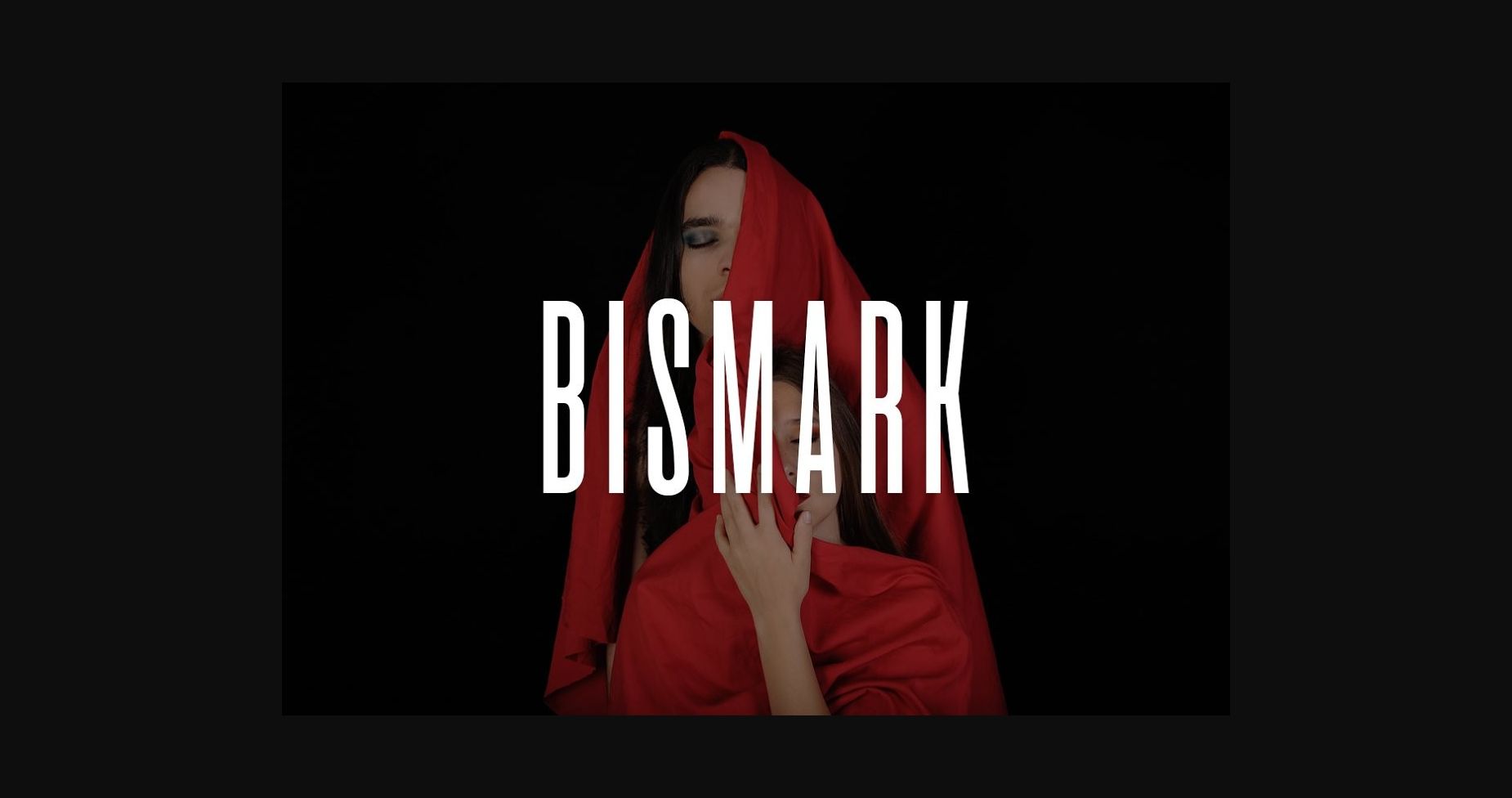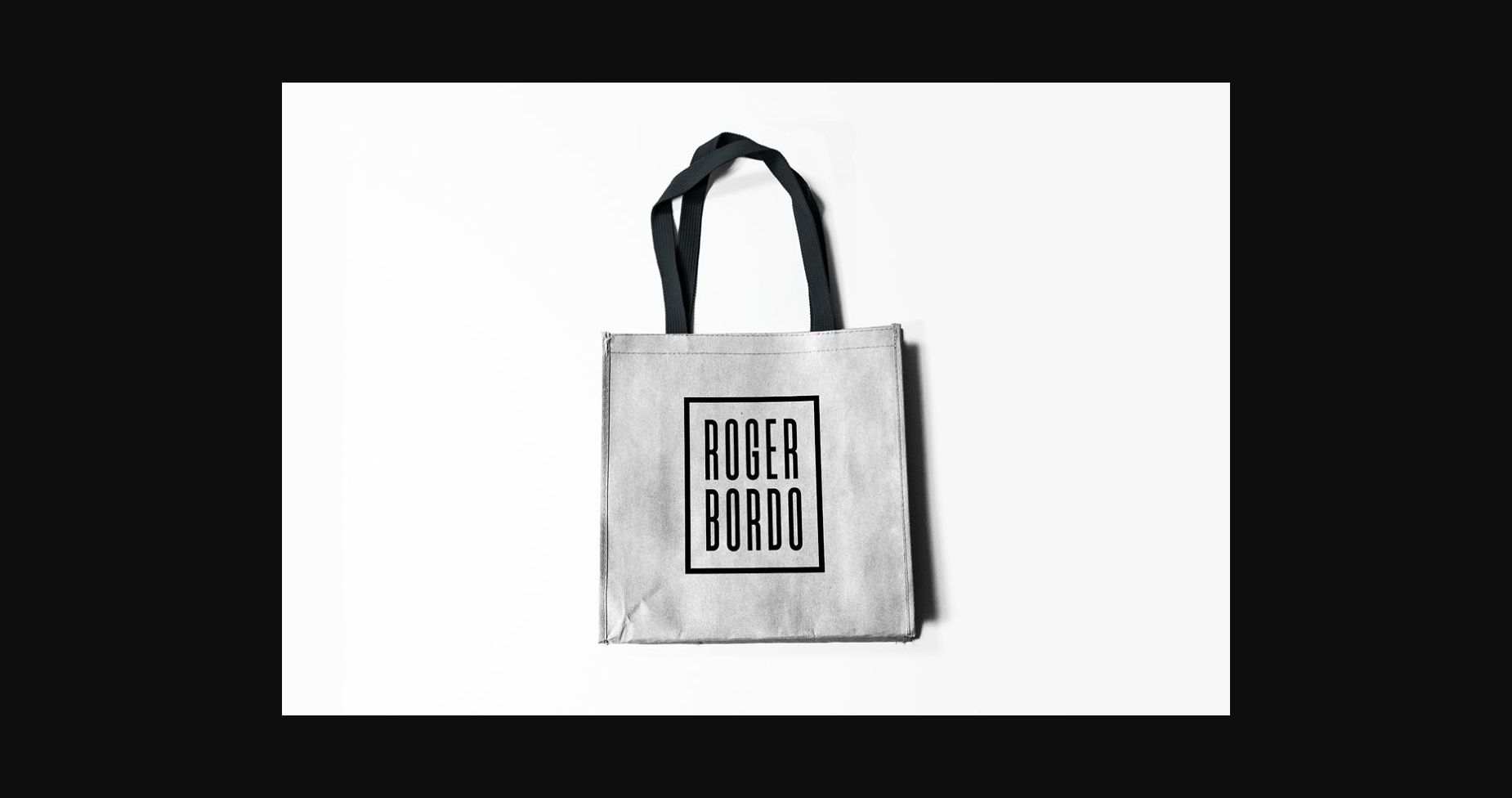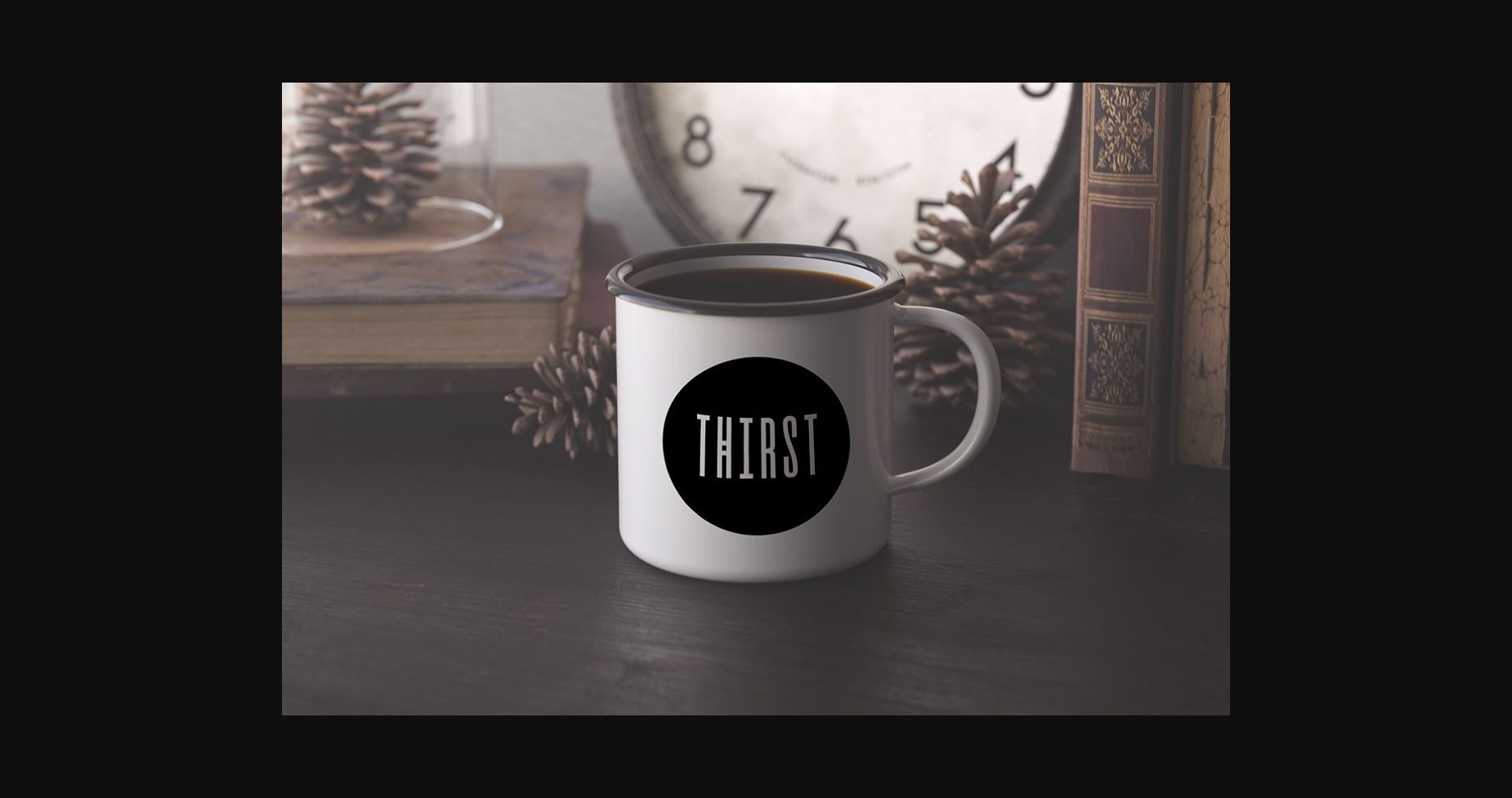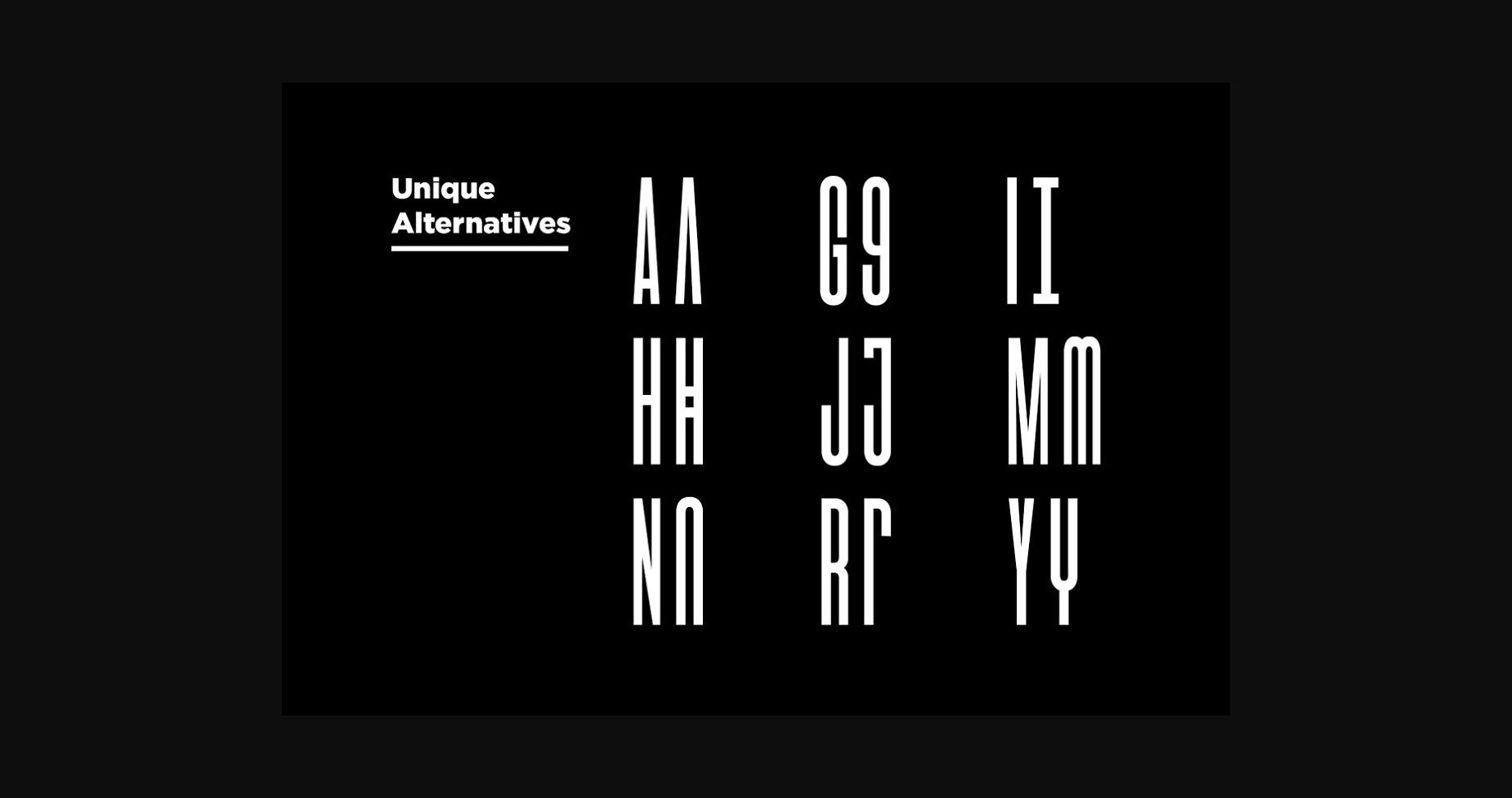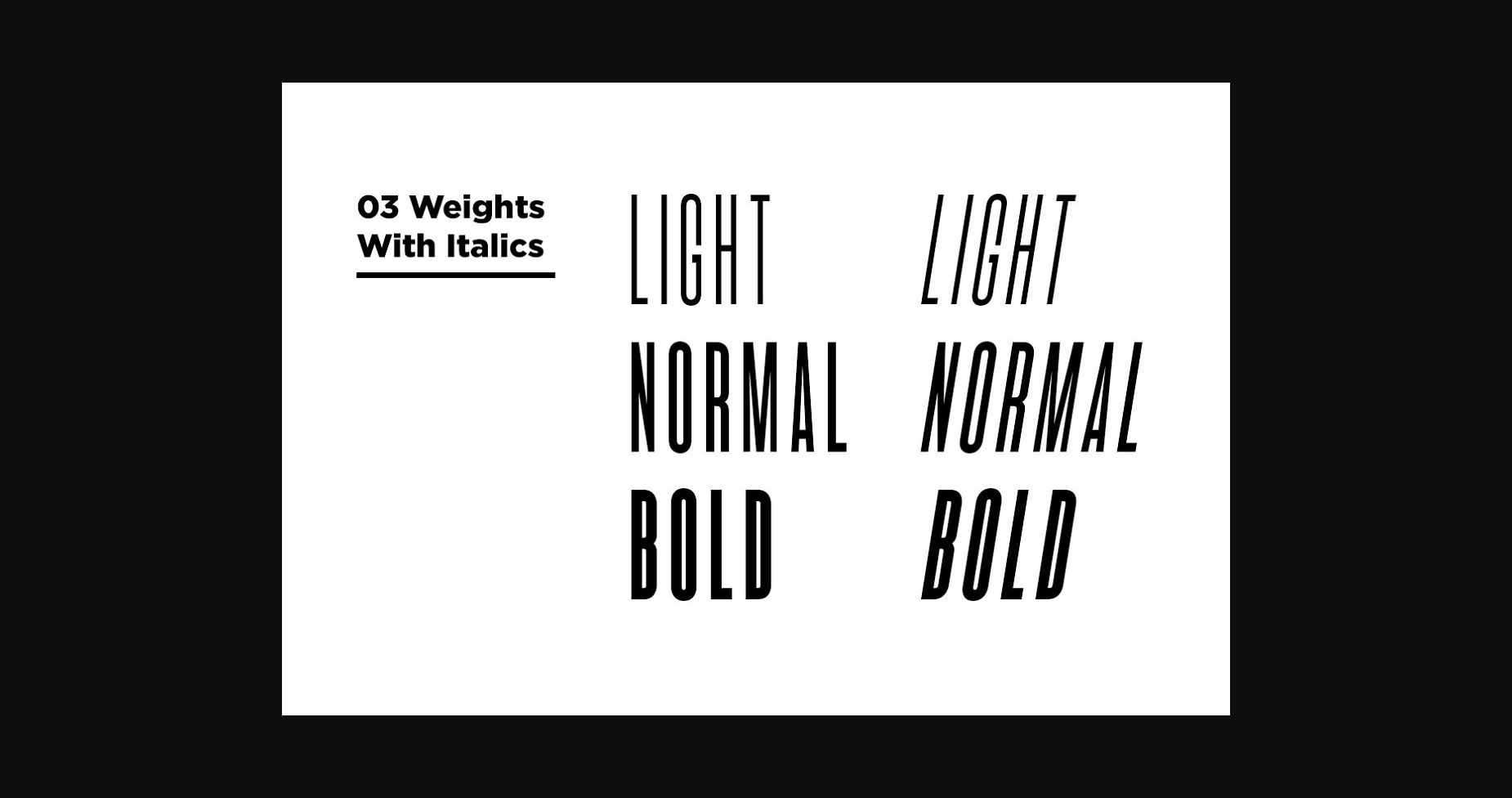
HomeSans Serif FontsBismark Font Sans Serif Fonts Bismark Font FacebookXPinterestWhatsApp 1 of 7 ... Bismark Font Poster 2... Bismark Font Poster 3... Bismark Font Poster 4... Bismark Font Poster 5... Bismark Font Poster 6... Bismark Font Poster 7... About Bismark Font Bismark is a bold and impressive sans serif font. It has a neat and classic style that can elevate the look of a wide range of designs, from magazine titles to branding, and more! DOWNLOAD NOW People also explored Trust Me Font Mellisya Signature Font Khian Shantang Font Neptune Font Hello Honey Font Room Handmade Fastspeed Font Pride Font Loong Rak Oo Font 297 0 TagsBismarkBismark Font Previous articleRipple FontNext articleHanover Font LEAVE A REPLY Cancel reply Comment: Please enter your comment! Name:* Please enter your name here Email:* You have entered an incorrect email address! Please enter your email address here Website: Save my name, email, and website in this browser for the next time I comment. Personal Use Free Mika Personal Use Free Read more about this font Penelope Brush Script Font Personal Use Free Read more about this font Genres Personal Use Free Read more about this font Whitelight Personal Use Free Read more about this font BLOG Fonts That Capture the Spirit of New York City New York City is more than just a place—it’s an experience, a rhythm, a visual language... 5 Fonts That Will Dominate Design Trends in 2026 Best Fonts for YouTube Videos: Make Your Thumbnails Stand Out Best Fonts for T-Shirt Design – Top 2025 Picks